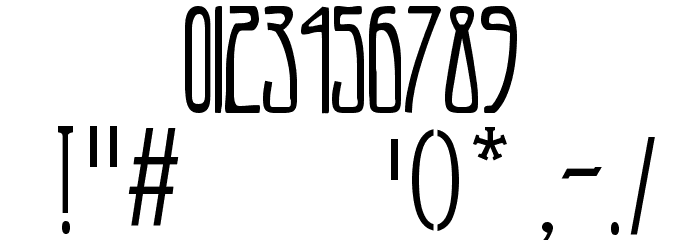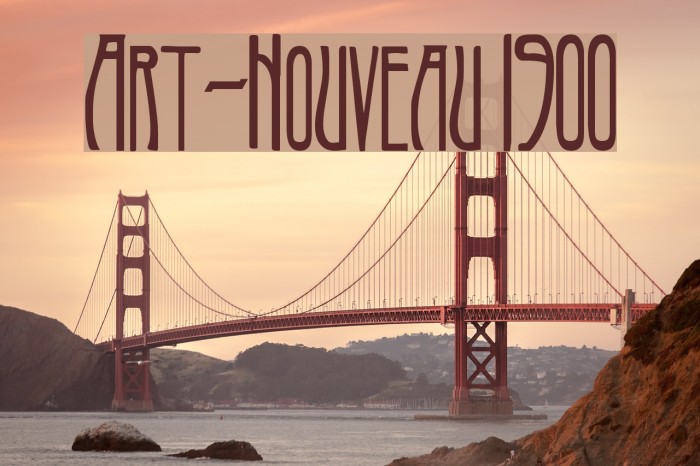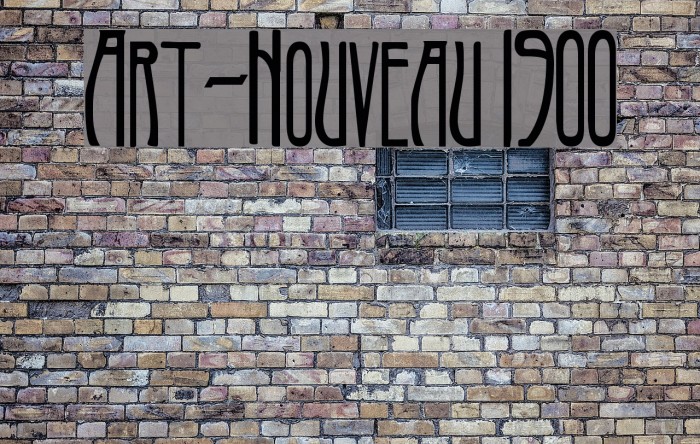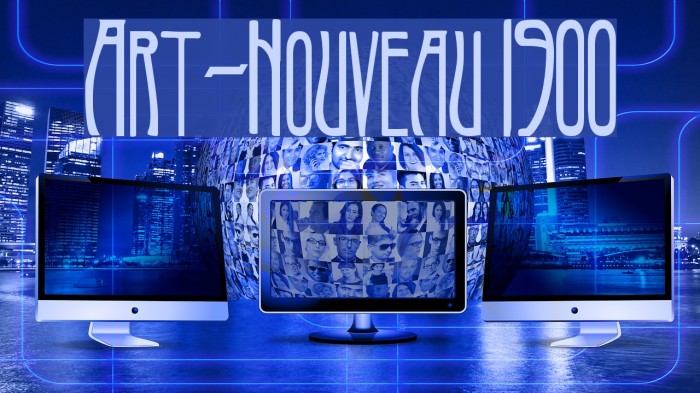
Art-Nouveau 1900 Font
This font embodies the elegance and fluidity characteristic of the Art Nouveau movement from the early 20th century. The letters are elongated and feature graceful curves, giving them a sophisticated and artistic appearance. The uppercase and lowercase characters maintain a consistent style, with a unique flair in the strokes that adds a sense of movement and dynamism. The numbers and special characters are designed to complement the overall aesthetic, ensuring a cohesive look across all text elements. This font is ideal for projects that aim to evoke a sense of nostalgia and artistic expression.
An elegant, elongated font with Art Nouveau-inspired curves and fluidity.
• Proposed Projects: Ideal for vintage posters, artistic invitations, branding for luxury products, and decorative signage.
• Category: Decorative/Display
• Width: Condensed
• Character Spacing: Normal
• Contrast: Medium
• Overall Style: Vintage
• Use Case: Headlines, Logos, Decorative text